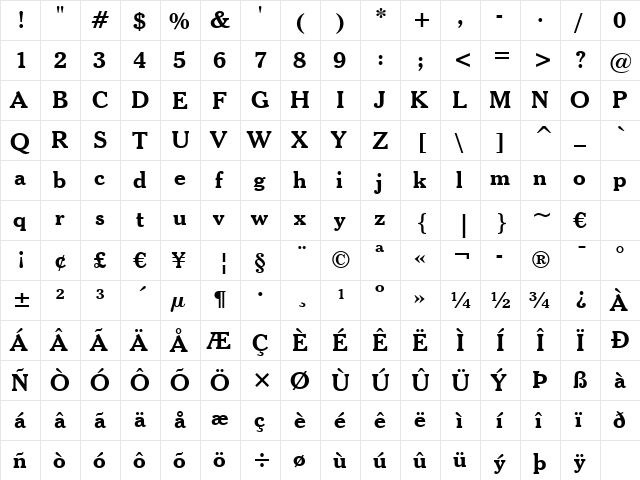
Cheltenhm BT Bold
Design Context for Cheltenhm BT Typeface
Cheltenhm BT is a composed and adaptable typeface that performs quietly and consistently across a wide range of design contexts. Its bold stroke weight gives it real presence on the page.